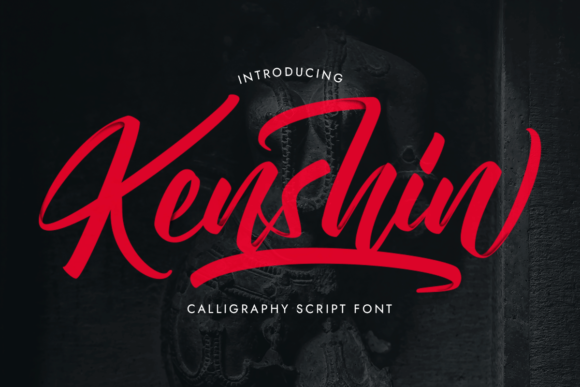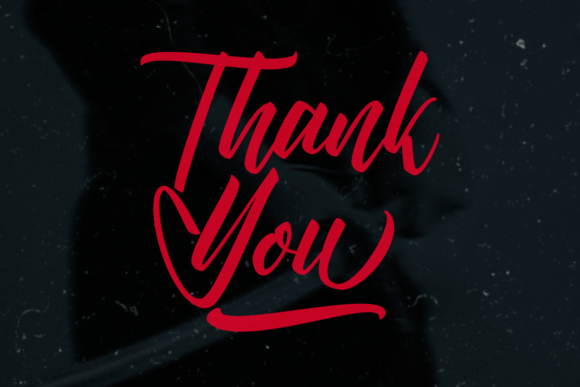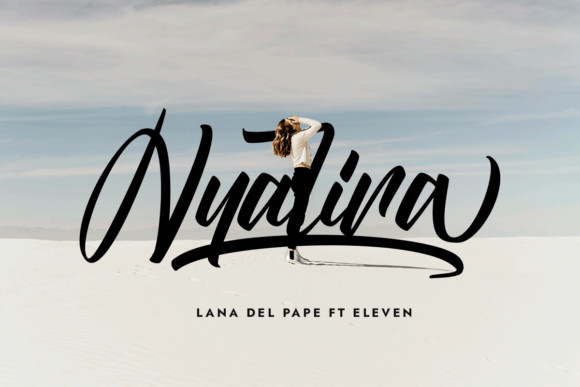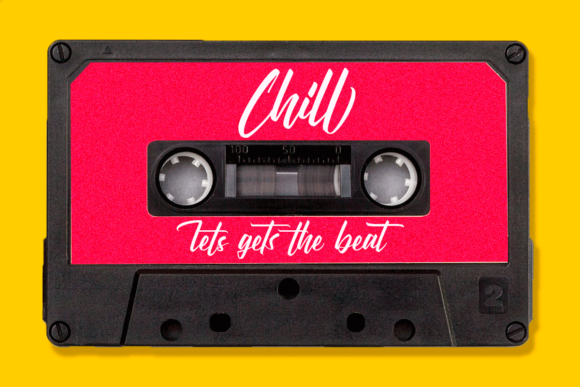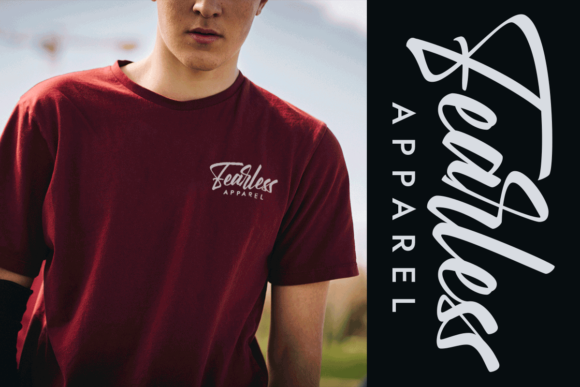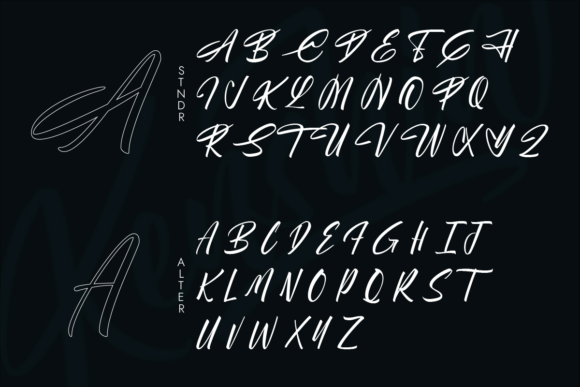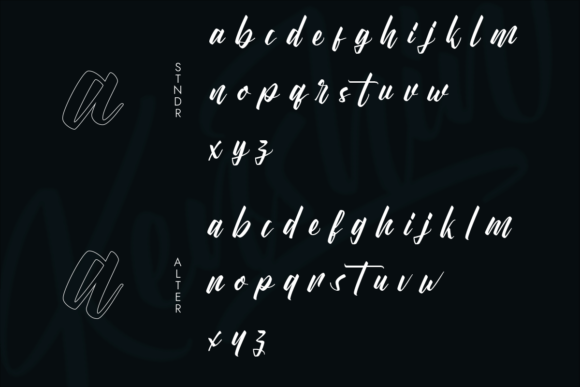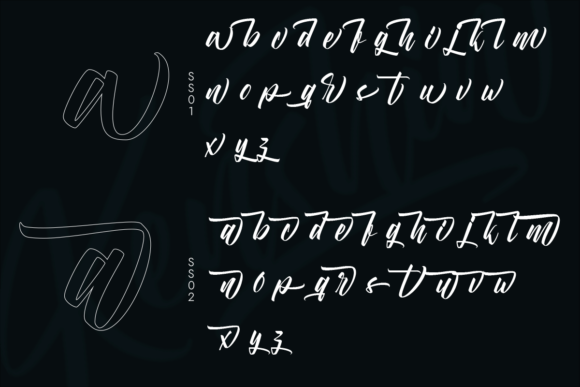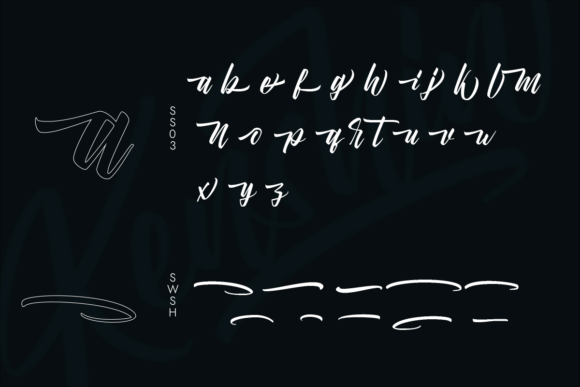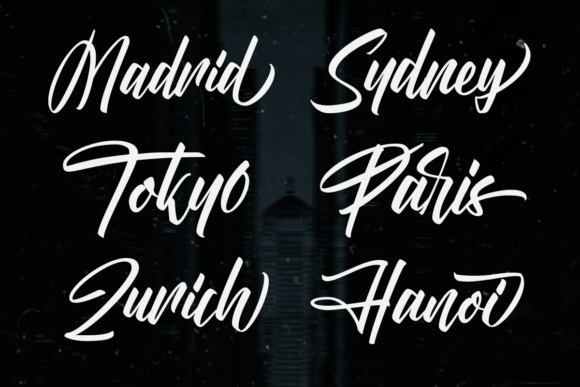
Kenshin Font
About Kenshin Font
Kenshin simplifies elegance into one truly outstanding handwritten font. This fantastic font is best suited for headlines of all sizes, as well as for blocks of text that have both maximum and minimum variations.